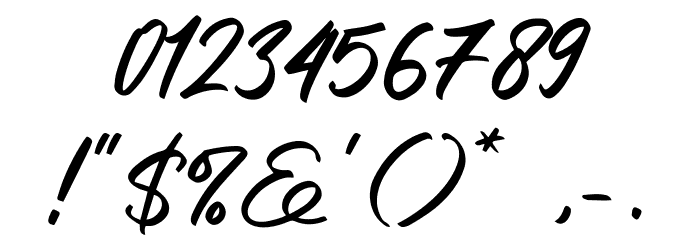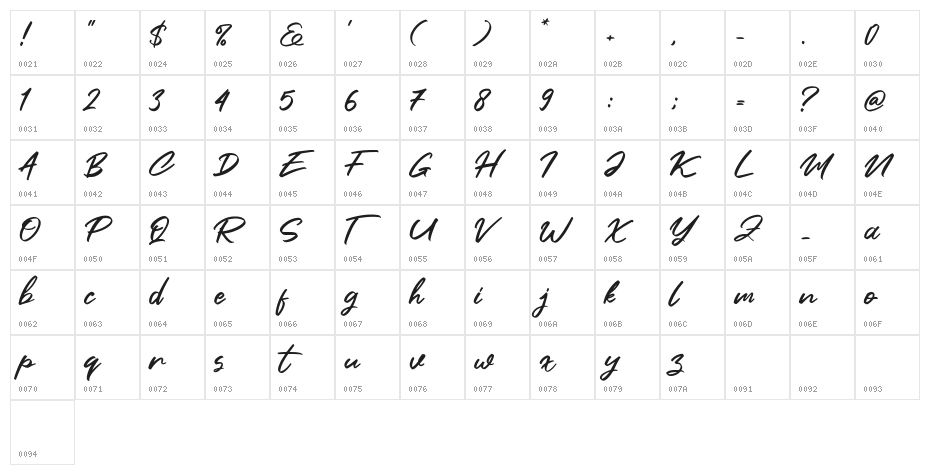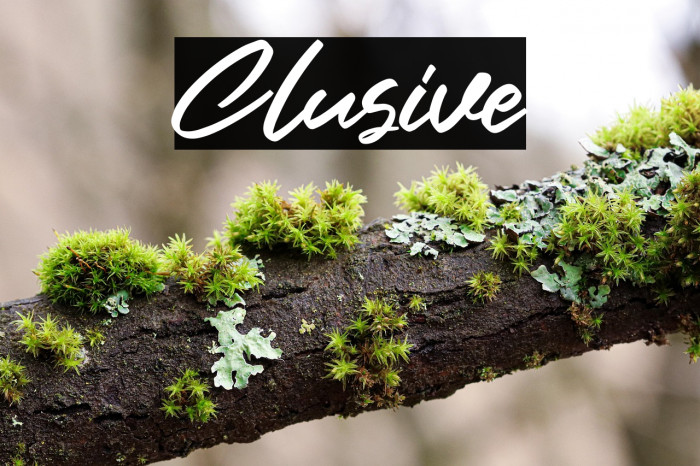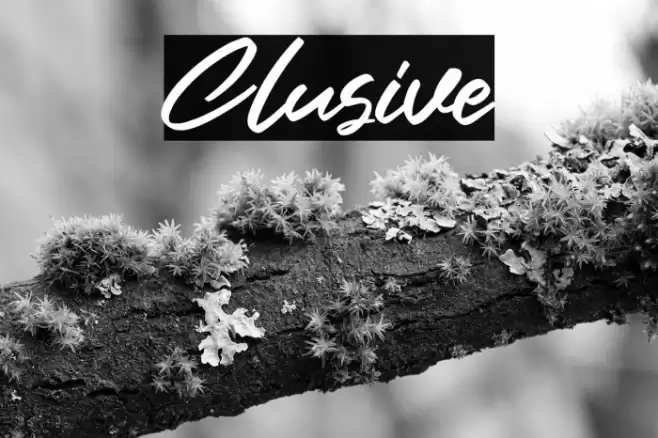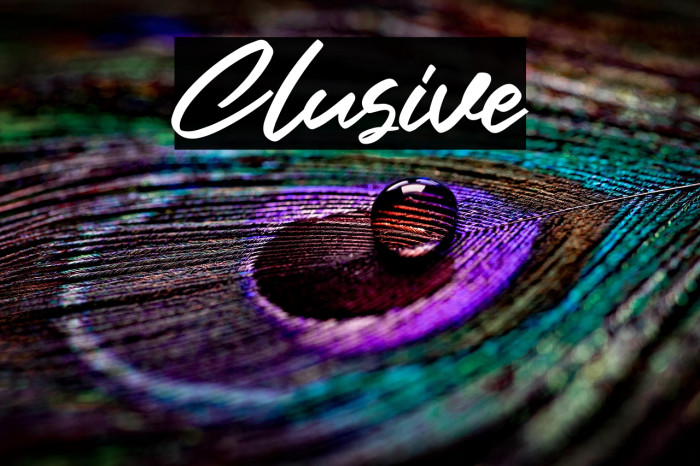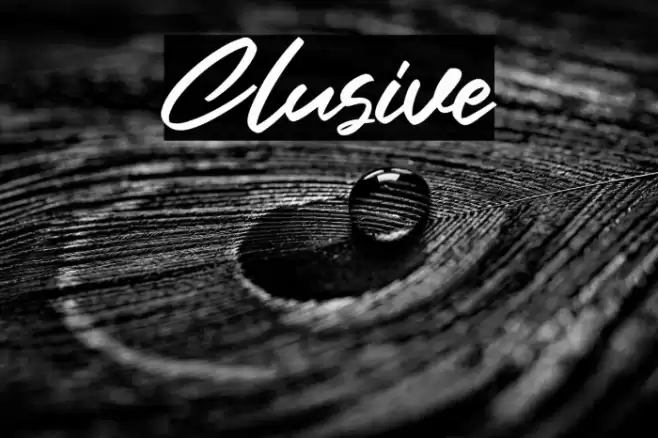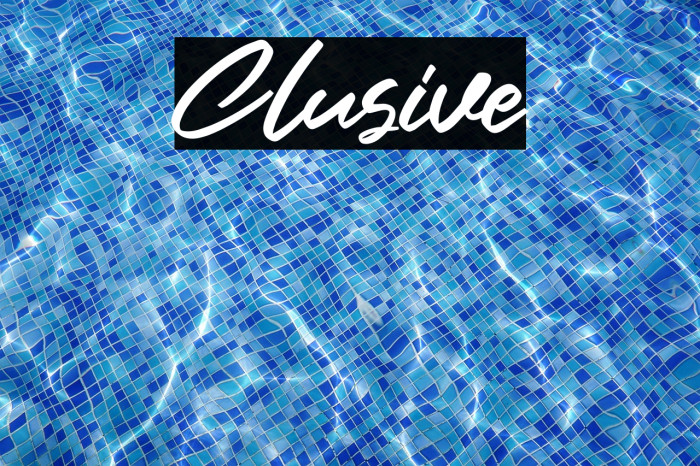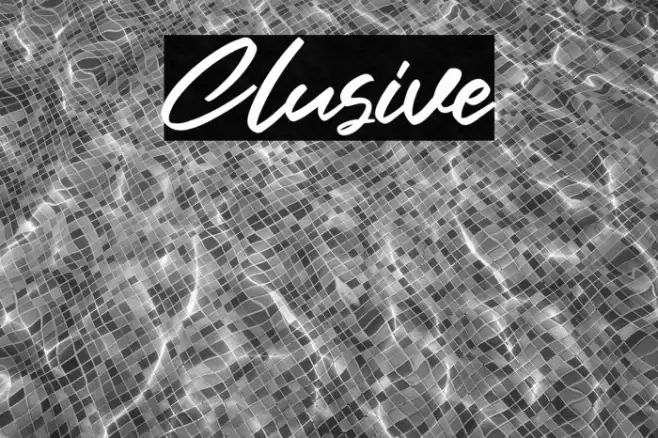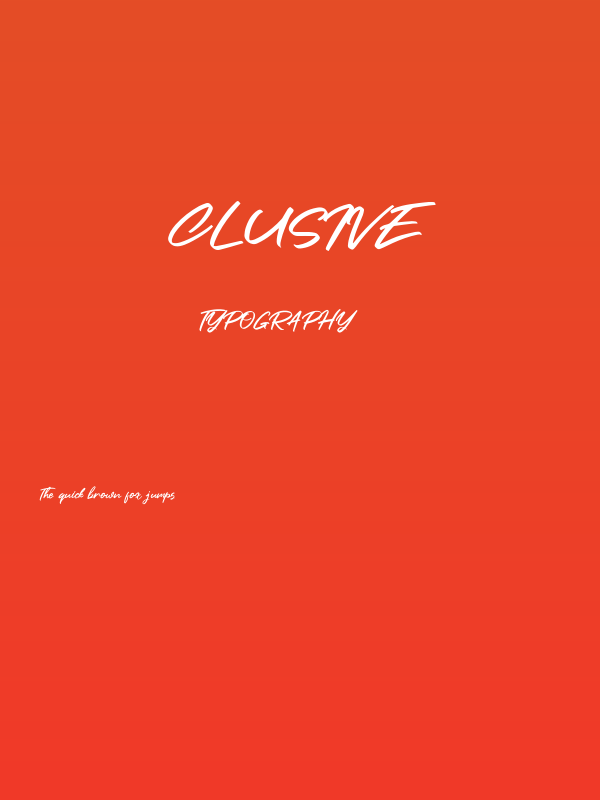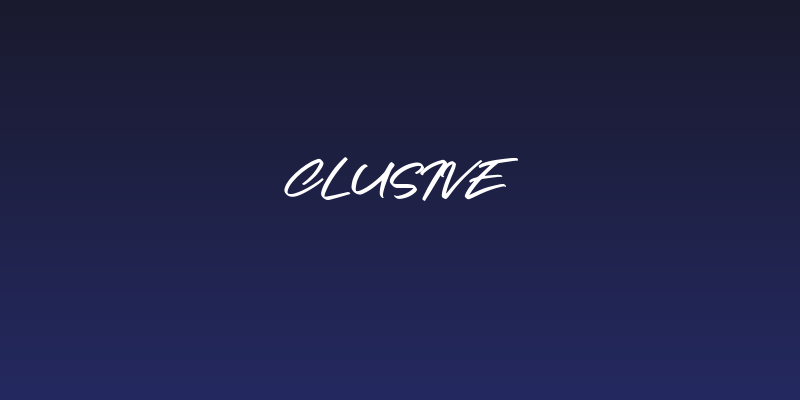
Clusive Font
Clusive Description
This font is a dynamic and flowing script style that exudes elegance and sophistication. The characters are connected in a cursive manner, giving it a handwritten feel. The strokes are smooth and consistent, with a slight slant to the right, enhancing its fluidity. The uppercase letters are bold and prominent, while the lowercase letters maintain a graceful continuity. The numerals and special characters are designed to match the overall aesthetic, ensuring a cohesive look. This font is ideal for projects that require a personal touch or a sense of luxury.
| Proposed Projects | Ideal for wedding invitations, branding, greeting cards, and elegant packaging. |